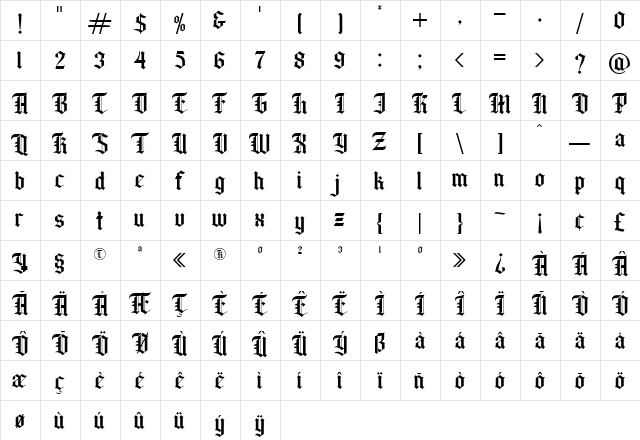
Wilson wells Regular
Foundry: Stringlabs
Designer: Stringlabs
Design Context for Wilson wells
Wilson wells is a composed and adaptable typeface that performs quietly and consistently across a wide range of design contexts.
Pro Tip: Use Wilson wells in both headline and body roles to test its range before committing to a single application.